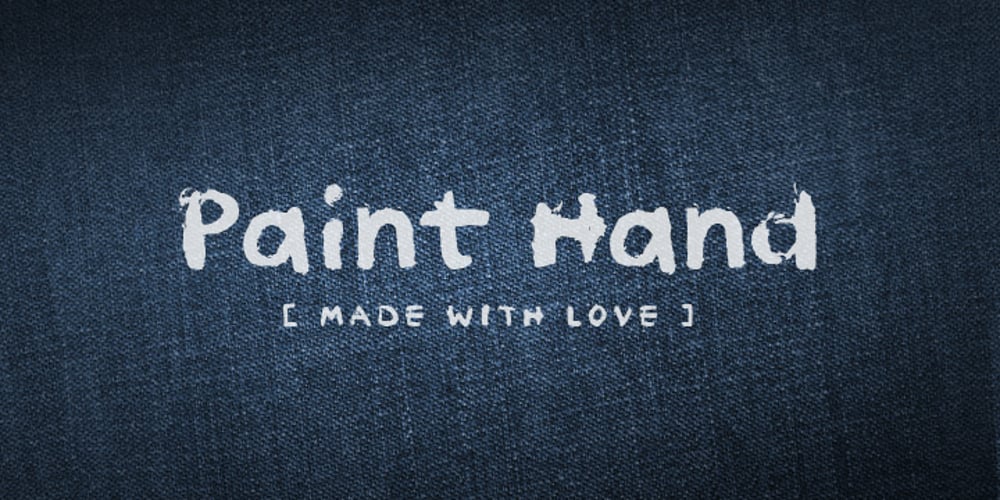
Paint Hand
Paint Hand font
Paint Hand Font Family was designed by Ursula Hitz and published by Letters&Numbers. Paint Hand contains 1 styles and family package options. Paint Hand is based on type drawn with an open acrylic paint tube. This bold vernacular typeface with rugged rounded edges will work well for headers and captions. Paint Hand is extended, containing West European diacritics making it suitable for multilingual environments and publications.